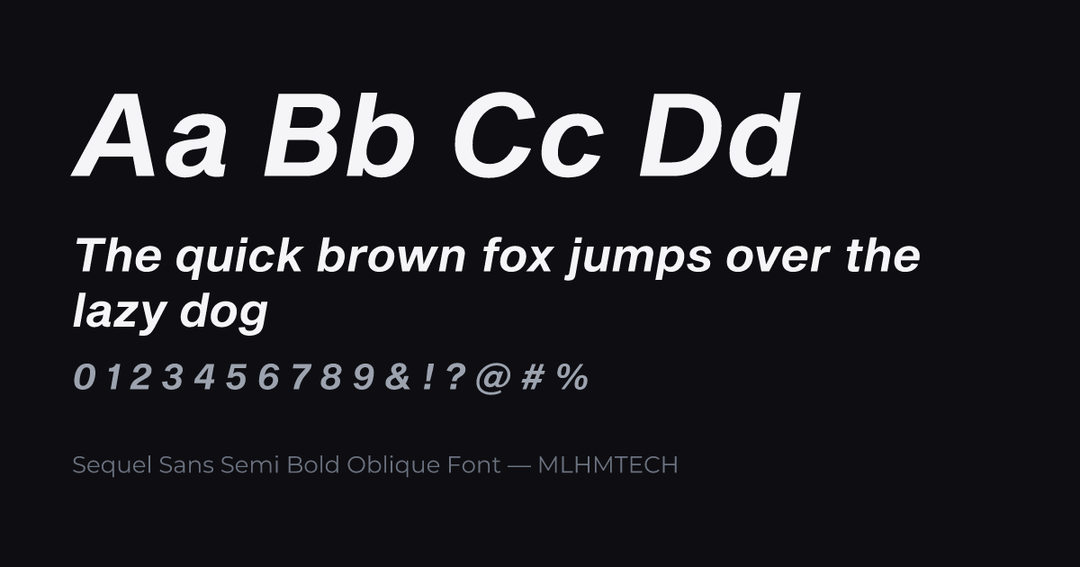
Sequel Sans Semi Bold Oblique Font
Sequel Sans Semi Bold Oblique is a contemporary sans-serif typeface with a subtle slant, ideal for adding dynamic energy to your designs.
Sequel Sans is a versatile geometric sans-serif family known for its clean lines and modern aesthetic. This Semi Bold Oblique variant combines a sturdy weight with an elegant italic angle, making it perfect for headlines, branding, and editorial layouts.
The oblique style adds a sense of motion and sophistication, while the semi-bold weight ensures strong legibility at various sizes. Whether you're designing a logo, poster, or website, this font will give your project a professional and polished look.